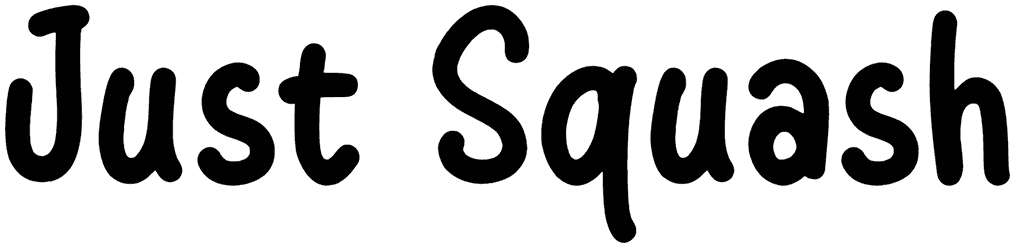
Just Squash Font
The Just Squash is the best choice if you are looking for an exciting script font. This masterpiece has a cute style and feels friendly. You may use Just Squash for various cases, such as posters, book covers, and prints on T-shirts, although it does not contain numbers.